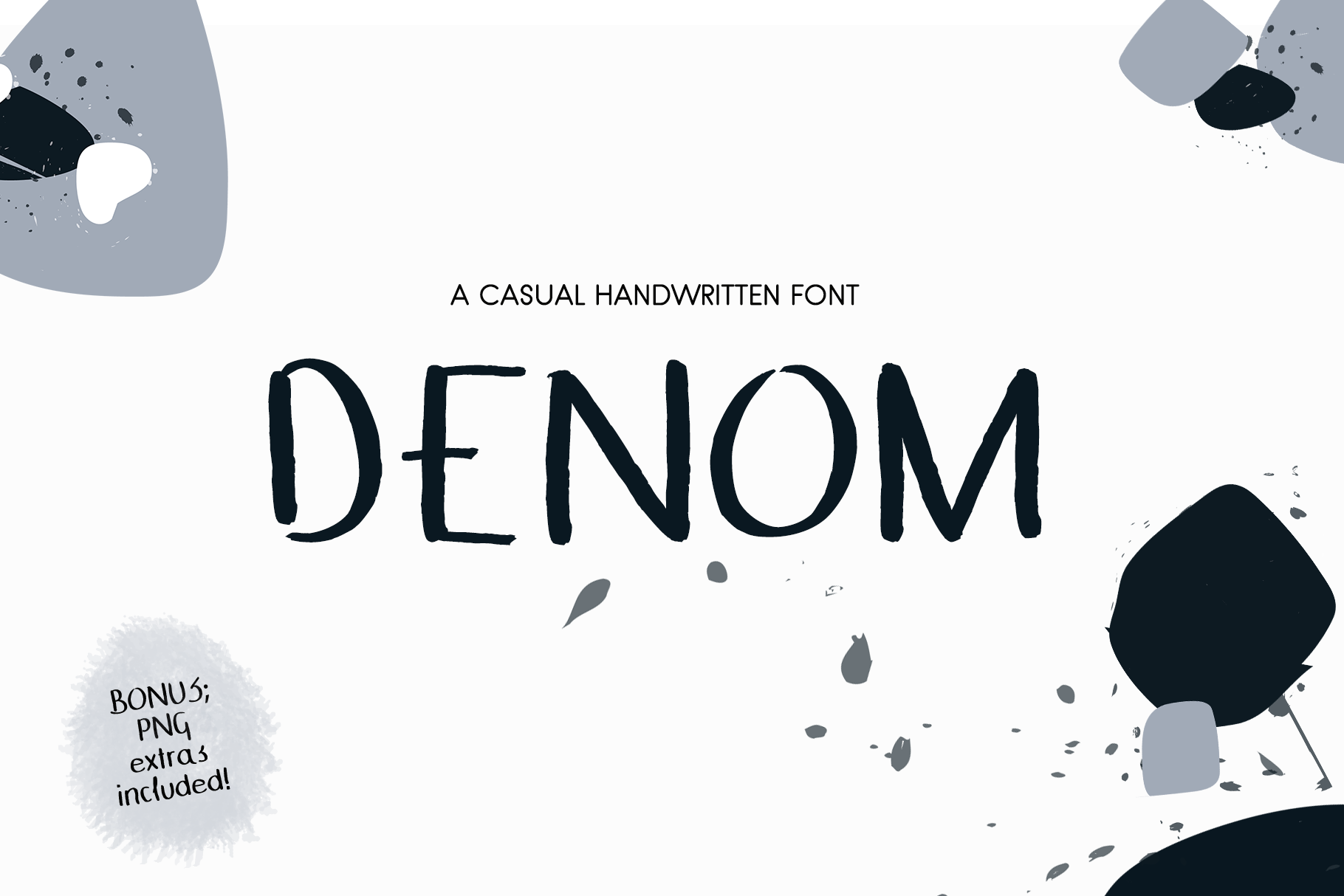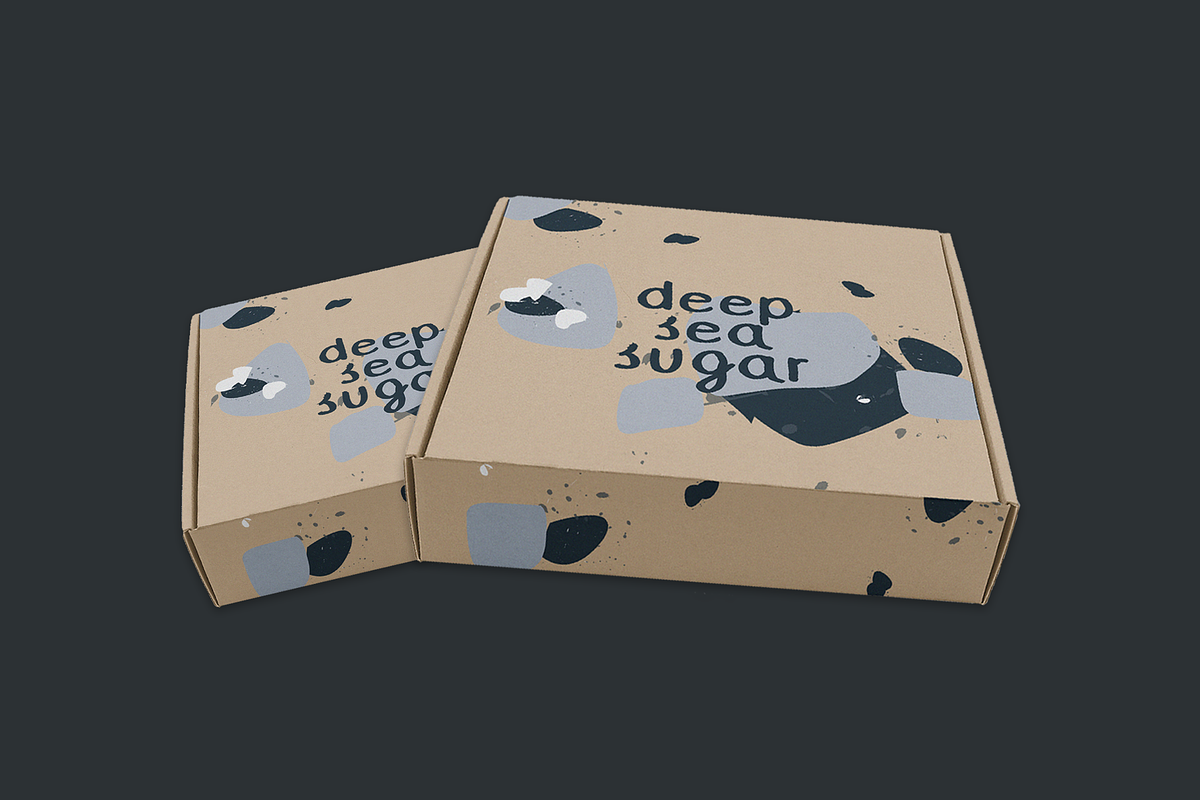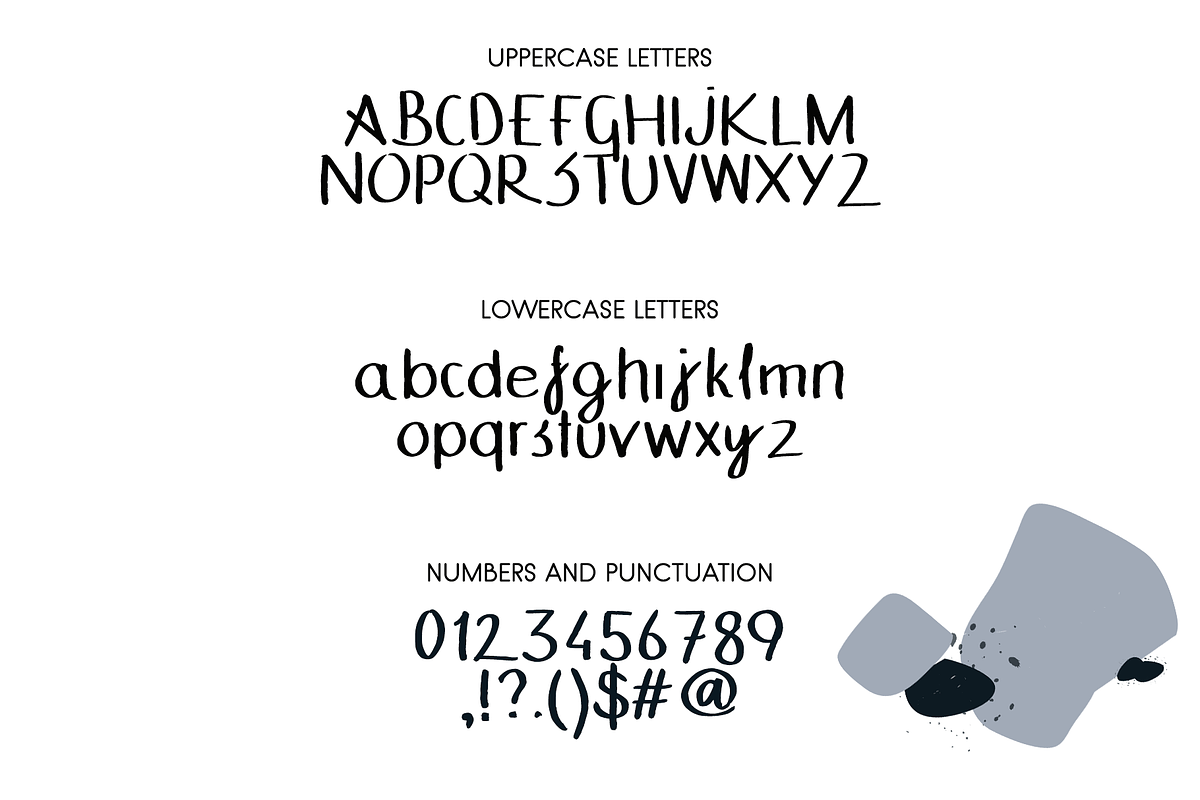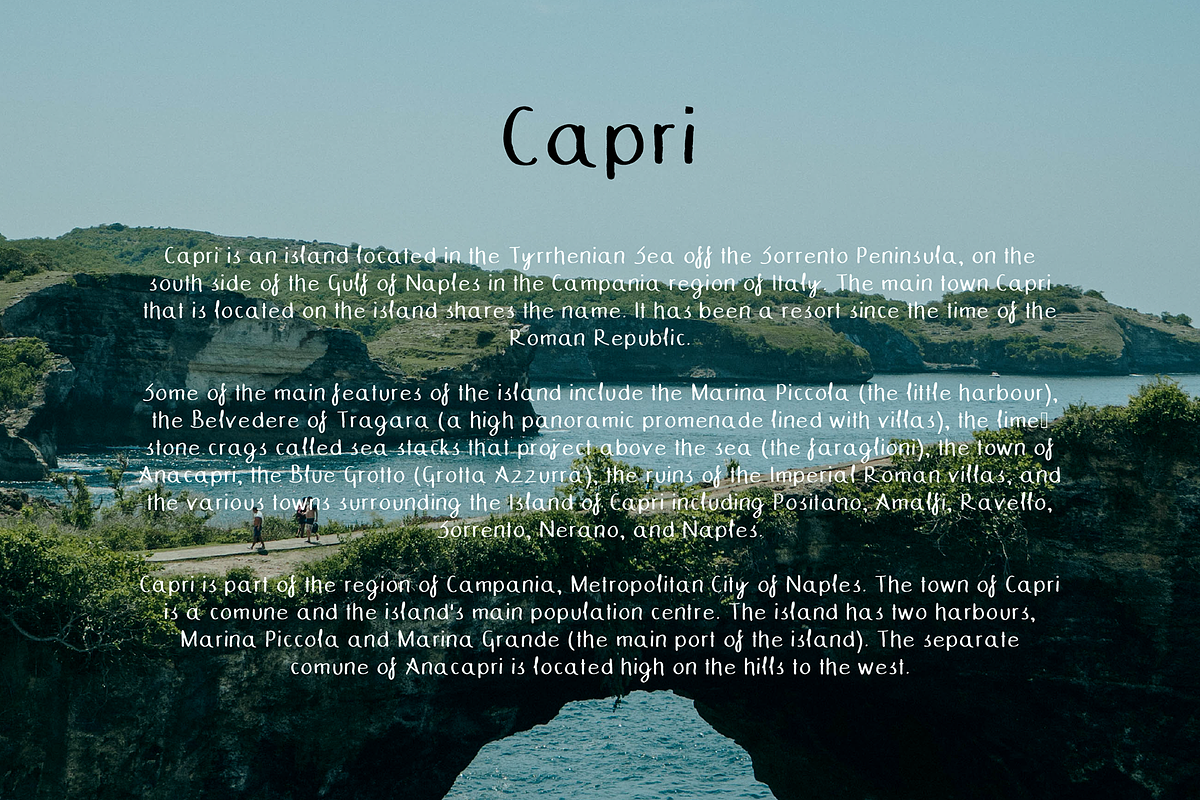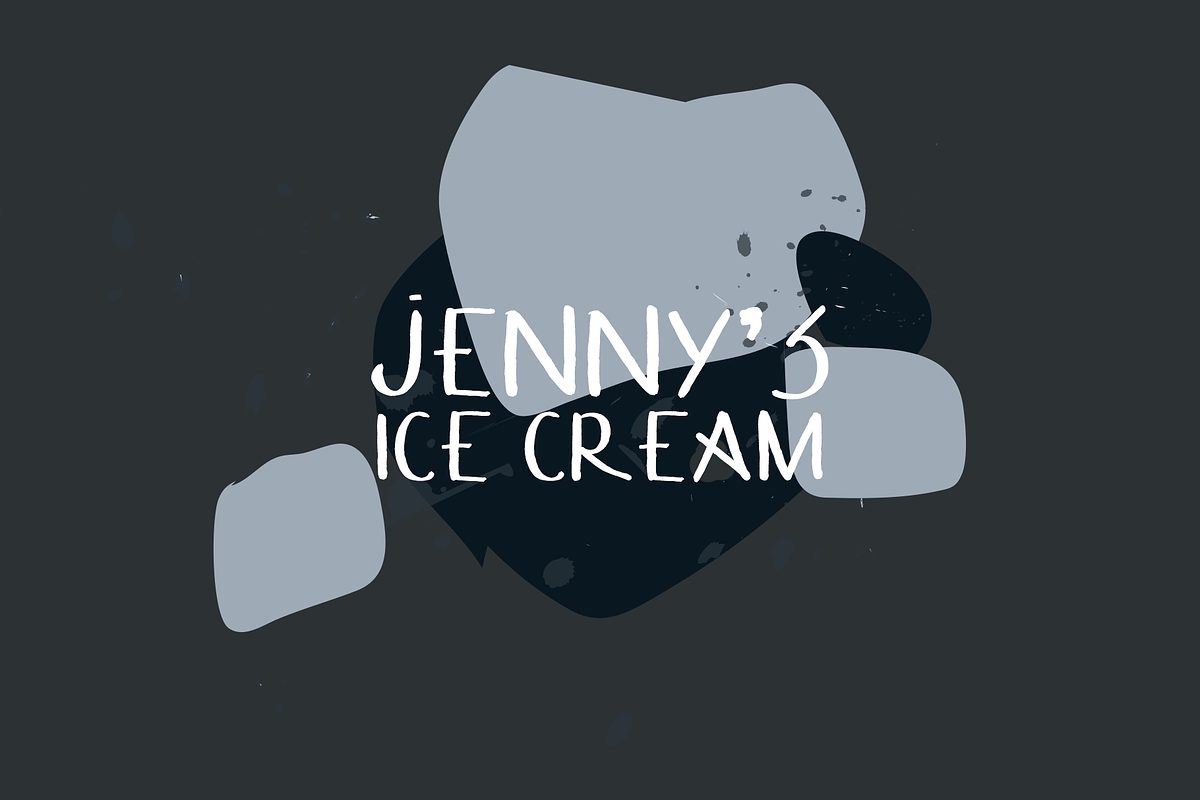
Denom Font
Denom is a delightfully playful font inspired by my mom's handwriting. It has clear and bold lines which make it very readable. Denom makes it easier to create amazing designs and add your projects a cosy, funny, hand-painted realistic and natural character.